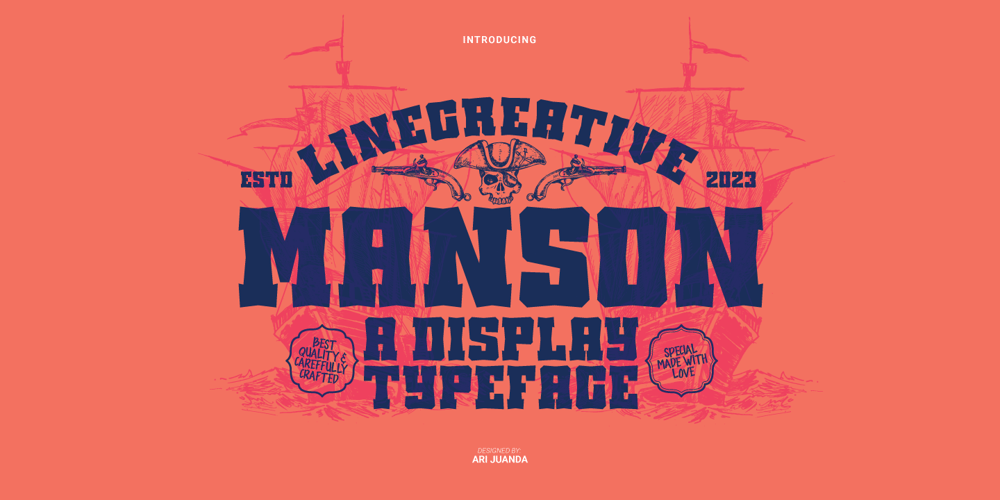
Manson Font Family was designed by Ari Juanda and published by Linecreative. Manson contains 1 styles and family package options. Manson font , created because it was inspired by the shape of colossal stone pillars, a unique shape where at the waist the font structure is curved and this gives a solid impression.This font perfect for vintage and poster designs as well as for your logo design, brand image, retro poster, handwritten quotes, product packaging, merchandise and moreWhat you get dear, you will get :